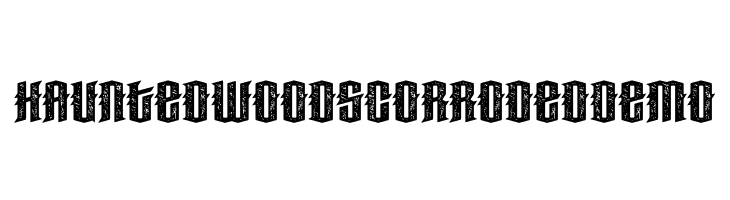
A bold, energetic script font with sweeping strokes and a lively, handwritten style.
A bold, brush-style font with dynamic and artistic strokes.
A dynamic, brush-style font with expressive strokes and fluid motion.
A bold, hand-drawn font with a rough, expressive style.
A tall, narrow, hand-drawn font with a whimsical and artistic style.
An elegant and flowing script font with intricate decorative letterforms.
A dynamic, brush-stroke font with expressive and artistic flair.
An elegant script font with flowing, interconnected characters and bold uppercase letters.
A whimsical, hand-drawn font with playful curves and decorative elements.
A bold, brush-textured font with expressive uppercase and lowercase letters.
A festive, decorative font with holly leaf accents and angular strokes, perfect for holiday themes.
A dynamic and artistic script font with elongated strokes and bold numerals.
A dynamic, brushstroke-style font with an artistic and expressive flair.
A bold, dynamic script font with flowing, interconnected strokes.
A bold, jagged font with sharp angles and an energetic, primitive style.
A bold, brush-style font with dynamic, hand-drawn characters.
A bold, expressive font with a hand-drawn, dynamic style.
A dynamic, brush-like font with sharp, angular strokes and an artistic flair.
A playful, handwritten font with a whimsical and relaxed style.
A playful, hollow font with a whimsical and artistic style.
An intricate, decorative font with swirling, vine-like embellishments.
A bold, playful font with a hand-drawn, comic book style.
An ornate and decorative script font with intricate swirls and flourishes.
A bold, decorative font with intricate patterns and geometric shapes.
A decorative and playful font with intricate patterns and whimsical letterforms.
A bold, distressed font with a textured, spray-painted appearance.
A playful, hand-drawn font with a textured, whimsical style.
A bold, hand-drawn font with a textured, scribble-like pattern.
A bold, brush-style font with a raw, expressive aesthetic.
A tall, narrow font with a modern and artistic style.
A bold, brush-stroke style font with an artistic and dynamic appearance.
A bold, distressed font with a grunge texture for a rugged, edgy look.
A bold, distressed font with a rugged, hand-drawn appearance.
A flowing, cursive font with elegant, interconnected strokes.